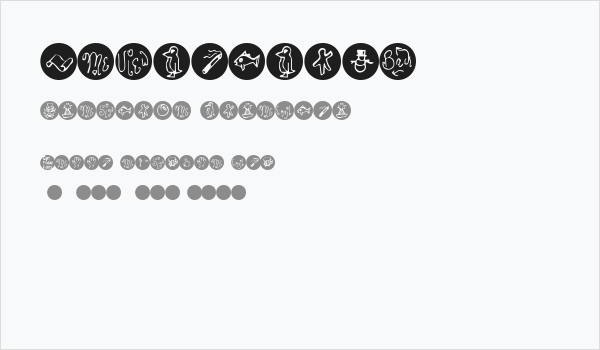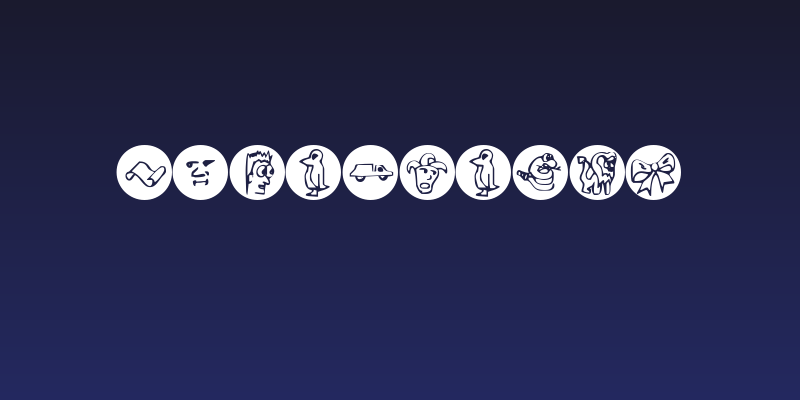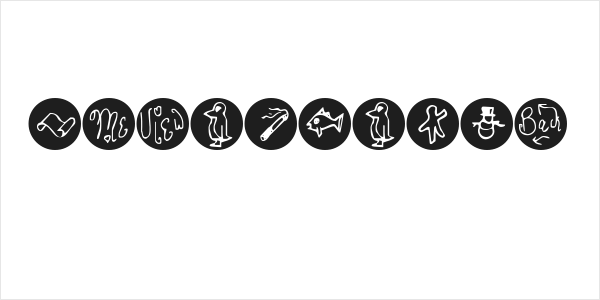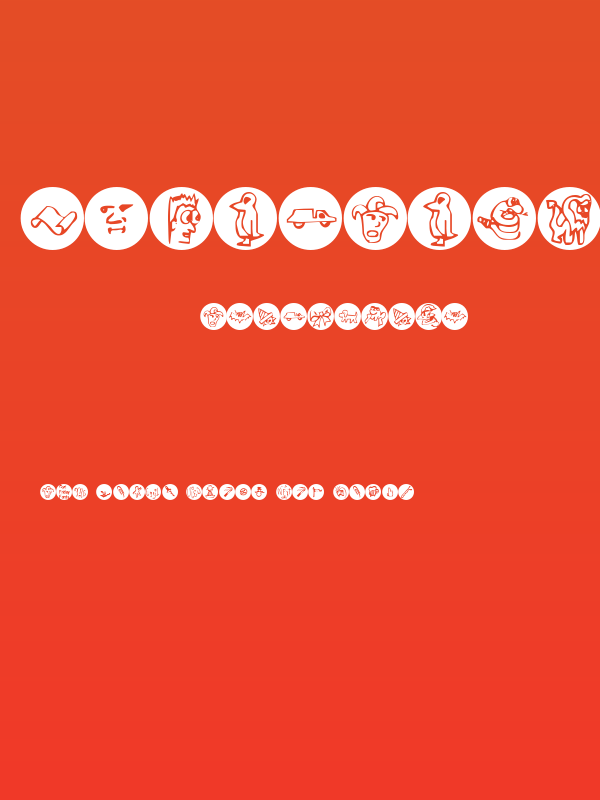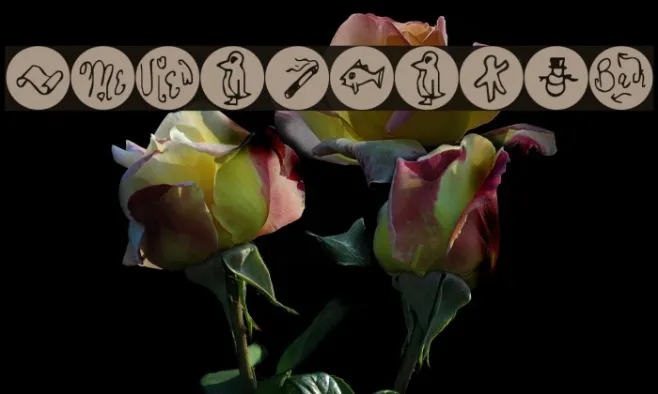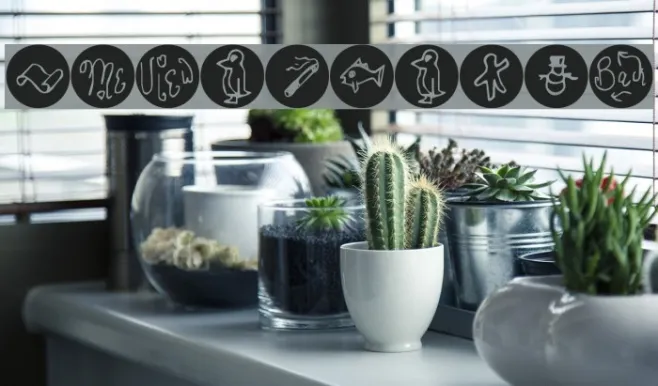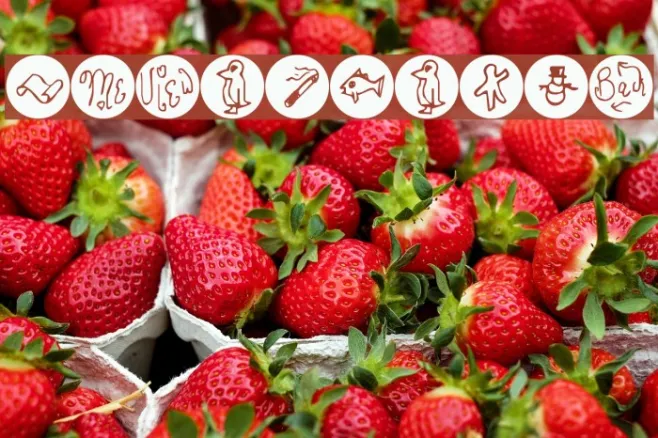
WebDotDing Font
WebDotDing Description
This is a decorative font consisting of a series of playful and whimsical icons enclosed in circles. Each character represents a unique doodle-like illustration, ranging from animals and objects to abstract shapes and symbols. The style is hand-drawn with a casual and informal feel, making it suitable for creative and fun projects. The icons are bold and easily recognizable, with a consistent line weight throughout. This font is ideal for adding a touch of personality and charm to designs, especially those aimed at children or informal settings.
| Proposed Projects | Ideal for children's books, playful branding, greeting cards, and creative digital content. |